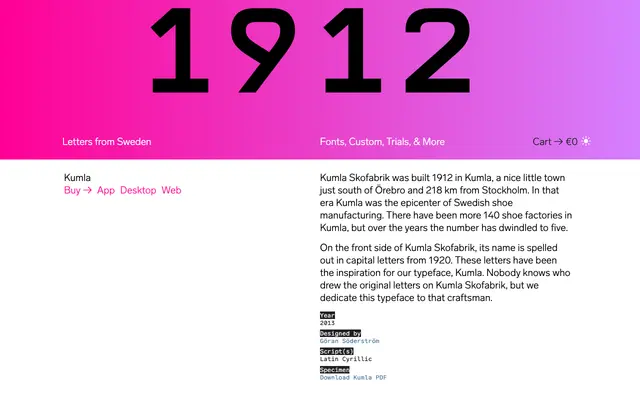
Kumla
Letters from Sweden · Göran Söderström · 2013
A single-weight display face drawn from the 1920s architectural lettering on a shoe factory in Kumla, Sweden.
Göran Söderström revived the capital letterforms spelled out on the facade of Kumla Skofabrik, a shoe factory dating from 1912, and released the result in 2013. The face is all-caps in origin, carrying the monoline geometry of early twentieth-century commercial signage, and covers both Latin Extended and Cyrillic scripts. Its character set is broad enough for multilingual work despite having just the one weight.
Kumla is an all-caps geometric display face drawn from vernacular architectural lettering of the 1920s; its monoline construction and capital-only origins place it firmly in the display category.